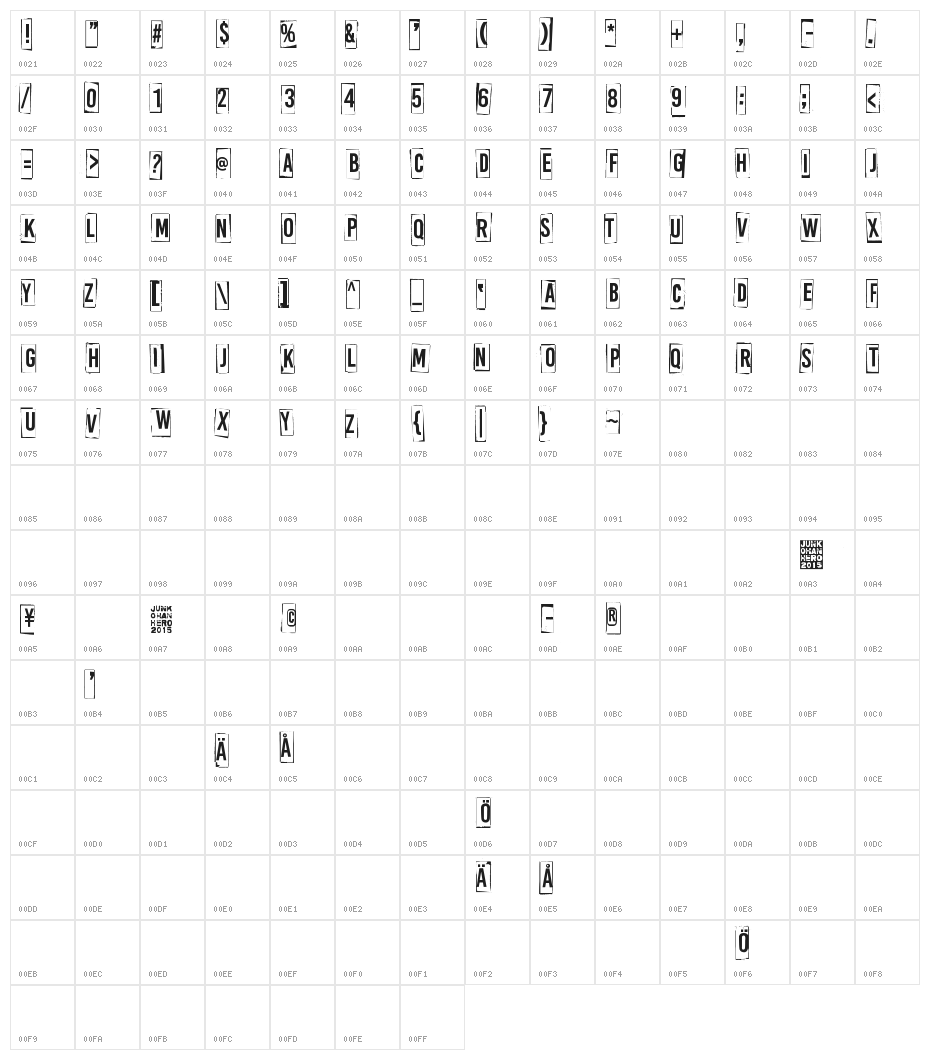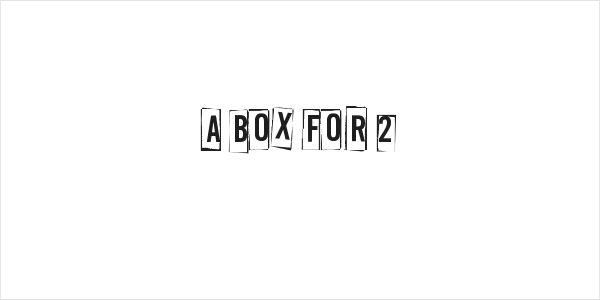
A Box For 2 Font
A Box For 2 Description
This font features a bold, blocky style with a distressed, grunge texture that gives it a rugged, vintage appearance. Each character is enclosed in a box, adding to its distinctive, eye-catching look. The letters are uppercase, with a consistent height and width, creating a uniform and structured feel. The numbers and special characters follow the same boxed design, maintaining the cohesive style throughout. The distressed effect adds a sense of depth and character, making it suitable for projects that require a bold statement or a retro aesthetic.
Overall StyleVintage
Proposed ProjectsIdeal for posters, album covers, branding, and any design requiring a bold, vintage touch.